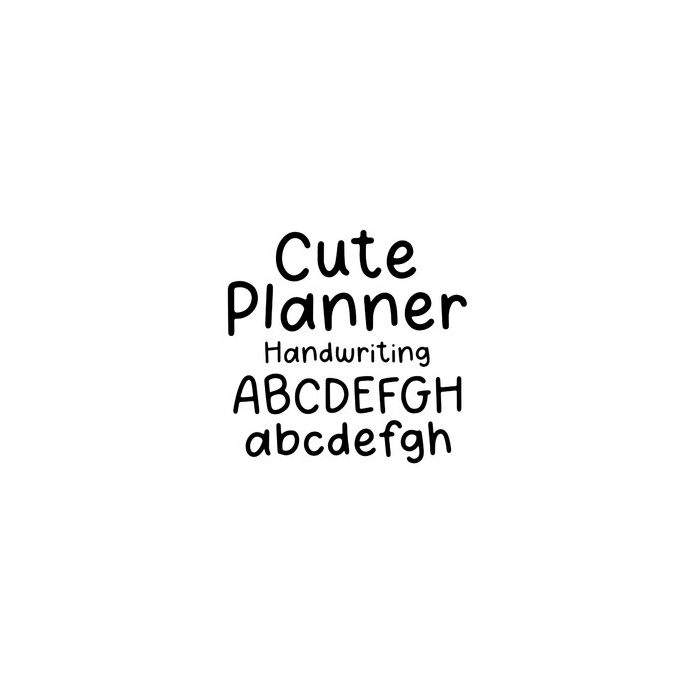
BFC Cute Planner Handwriting Bold Simple Clean Handwriting Font
Cute Planner handwriting is a bold and clean handwritten font. Perfect for Goodnotes and planners.